Microsoft Fonts: Enhancing Typography in the Digital World
Typography plays a crucial role in the design and aesthetics of any written content. Fonts, in particular, are the building blocks of typography, enabling the effective communication of ideas and messages. Microsoft, being a technology giant, has developed its own collection of fonts that have become integral to the digital world.
Microsoft offers a diverse range of fonts that cater to various styles and preferences. Among its most popular fonts is Calibri, which replaced Times New Roman as the default font in Microsoft Office applications since 2007. Calibri is a sans-serif font that strikes a balance between professionalism and modernity, making it suitable for both formal and informal documents. Its clean and clear design ensures legibility, even when displayed on different screens or printed at various sizes.
Another notable font from Microsoft is Arial, which is widely used across different platforms and applications. Arial is a sans-serif font that is known for its simplicity and versatility. Its clean and uniform lines make it easily readable, making it a popular choice for both online and print media. Arial is often considered a reliable and neutral font, making it suitable for a wide range of content, from websites to advertisements.
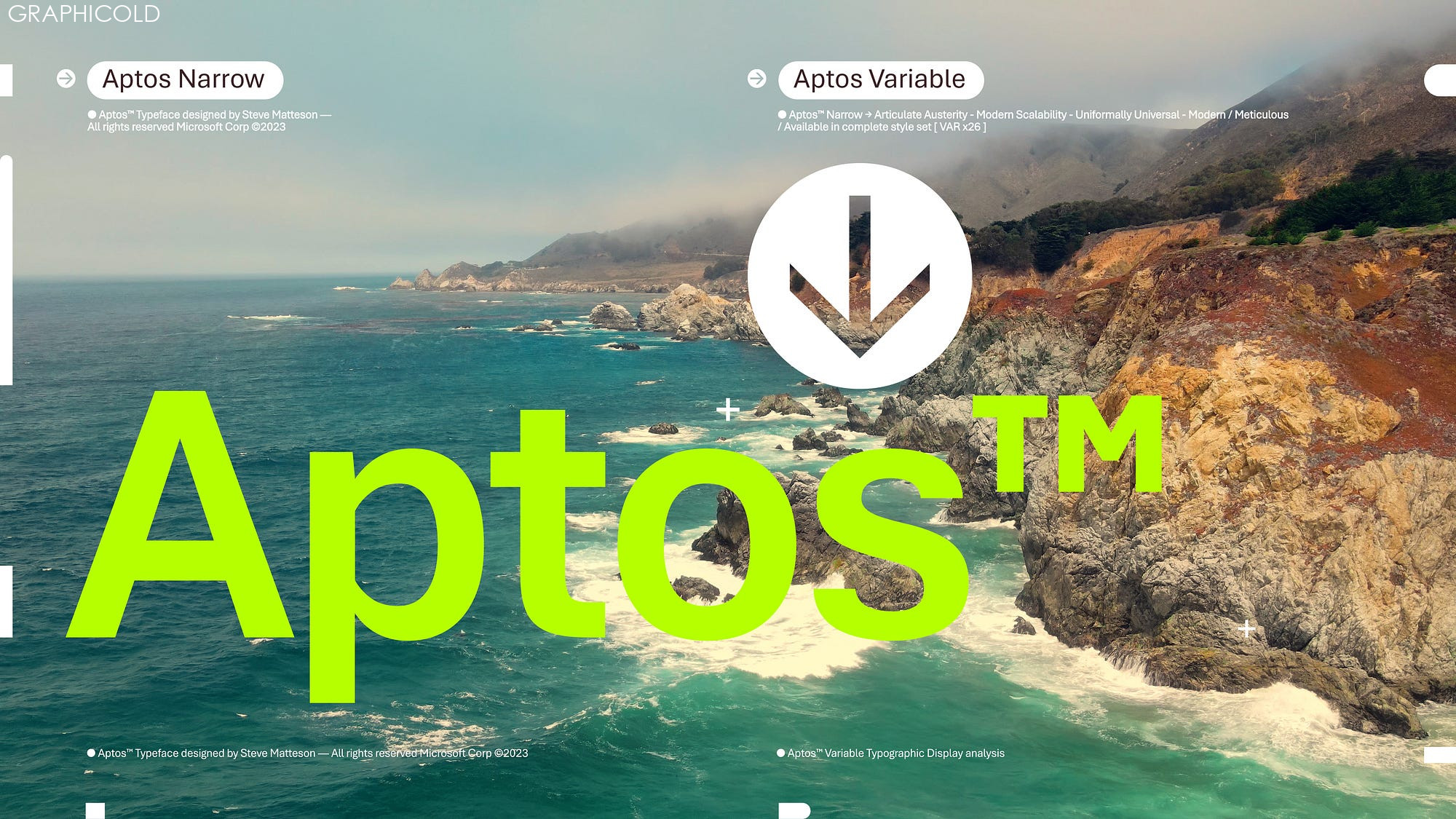
For those seeking a more traditional and elegant font, Microsoft offers Times New Roman. This serif font has been a staple in the typography world for decades. Known for its timeless appeal, Times New Roman is commonly used in academic and professional documents. Its traditional and formal design gives a sense of authority and credibility to the content.
Microsoft also provides a variety of decorative fonts for more creative purposes. One such font is Comic Sans MS, which is often used in informal settings or for comic book-style content. While controversial among typography enthusiasts, Comic Sans MS offers a playful and whimsical vibe, making it suitable for casual and light-hearted occasions.
In recent years, Microsoft has expanded its font collection to include more contemporary and unique options. One such example is Segoe UI, a sans-serif font that is widely used in Microsoft’s user interfaces, including Windows. Segoe UI offers a modern and sleek design, ensuring optimal readability on digital screens.
The fonts offered by Microsoft have become integral to various industries and sectors. From business documents to website design, the right font can significantly enhance the overall impression and readability of content. Microsoft’s collection of fonts caters to a wide array of needs and preferences, ensuring that users can find the perfect typography for their specific purposes.
In conclusion, Microsoft fonts have played a significant role in shaping the world of typography in the digital era. From professional documents to creative projects, these fonts offer a wide range of options to meet different needs and preferences. Whether it’s the modern and clean design of Calibri or the timeless appeal of Times New Roman, Microsoft fonts continue to enhance the visual appeal and legibility of written content in the digital world.